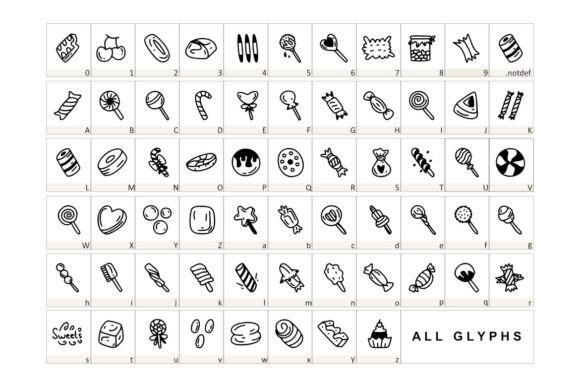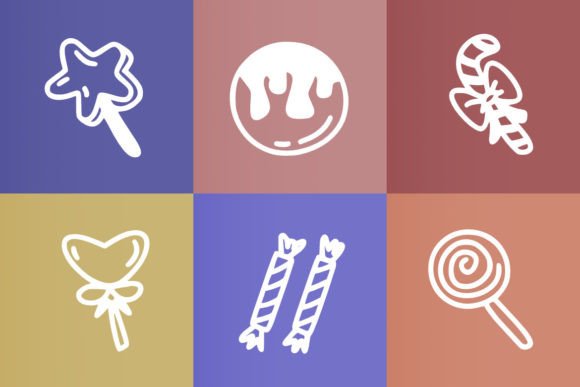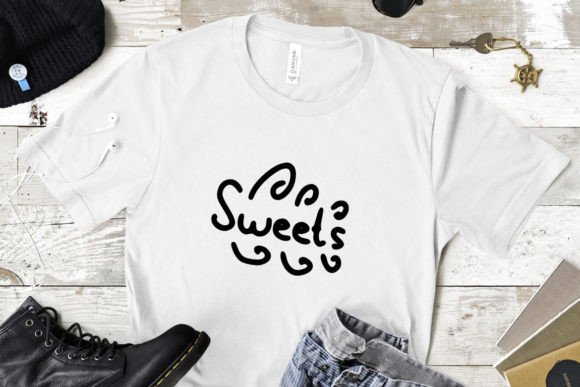
The Sweet Spot: Discovering Candys Font
I still remember the design project that led me to discover Candys Font. I was working on a fun sticker design for a client’s kids’ party, and I needed a font that was playful, yet versatile. As I scoured the web for the perfect font, I stumbled upon Candys Font, and it quickly became my go-to for a wide range of creative projects. If you’re a designer, crafter, or creative hobbyist looking for a fun and useful dingbats font, you’re in the right place!
An Honest Review of Candys Font
Candys Font has become a staple in my design toolkit, and here’s why:
- ✨ Playful and Versatile: Candys Font is perfect for a wide variety of projects, from stickers and posters to t-shirts and cards.
- ✅ Easy to Read: The font is clear and easy to read, making it perfect for designs that require a bit of whimsy without sacrificing legibility.
- 💡 Inspires Creativity: The unique glyphs and stylistic alternates in Candys Font will spark your creativity and help you create designs that stand out.
Of course, no font is perfect, and here are a few quirks to keep in mind:
- 🤔 Limited Character Set: As a dingbats font, Candys Font has a limited character set, which may not be suitable for designs that require a wide range of characters.
- ⚠️ May Not be Suitable for Body Text: Candys Font is best used for headlines, titles, or short phrases, rather than body text.
The Backstory Behind Candys Font
Candys Font was designed with the intention of creating a fun, versatile dingbats font that would inspire creativity and playfulness. The designer wanted to create a font that would be perfect for a wide range of projects, from stickers and posters to t-shirts and cards. With its unique glyphs and stylistic alternates, Candys Font is sure to add a touch of whimsy to any design.
| Font Name | Candys Font |
| Author | YandiDesigns |
| What type of projects is Candys Font best suited for? | Candys Font is perfect for a wide variety of projects, including stickers, posters, t-shirts, cards, and apparel graphics. |
| Is Candys Font easy to read? | Yes, Candys Font is clear and easy to read, making it perfect for designs that require a bit of whimsy without sacrificing legibility. |
| Does Candys Font have OpenType features? | Yes, Candys Font has a range of OpenType features, including glyphs and stylistic alternates, that can be accessed in compatible design software. |